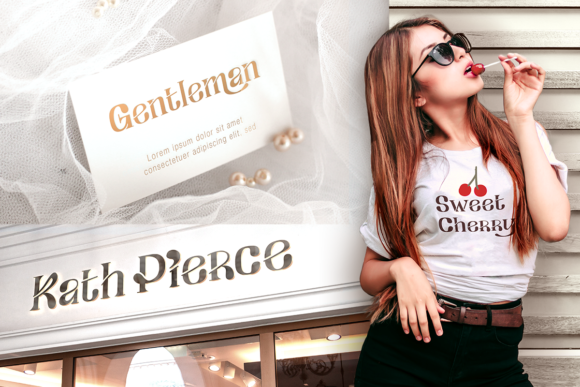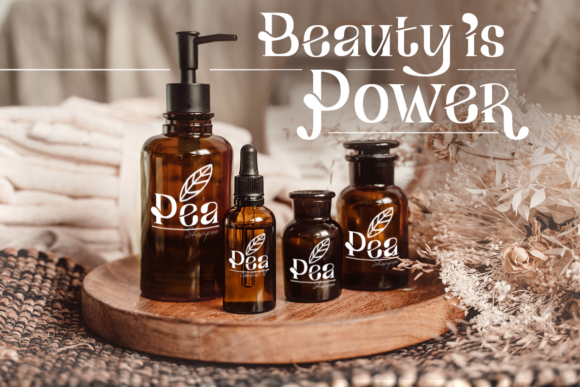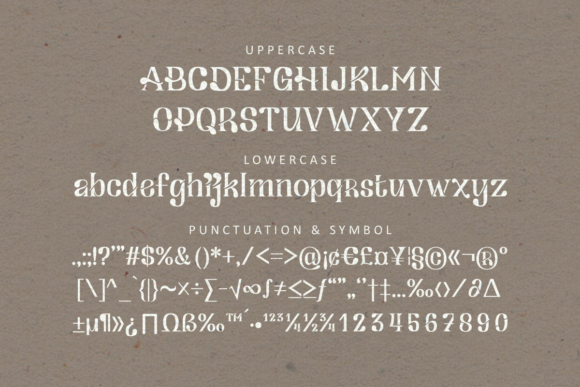
Introduction to Parisien Font
Have you ever been captivated by the charm of a city’s street signs, or the elegance of a high-end fashion magazine? For designers, those moments of creative inspiration can be a game-changer. For me, it was a stroll along the Seine in Paris that sparked the idea to dive deeper into the world of typography.
As I wandered through the city, I found myself drawn to the unique, modern aesthetic of the Parisien Font. Its sleek lines, intricate details, and versatility make it the perfect design resource for any creative project. Whether you’re working on a logo, brochure, or website, the Parisien Font is sure to elevate your design to the next level.
Key Features of Parisien Font
- High-quality, elegant design perfect for creative projects requiring a sophisticated touch.
- Designed with a high level of detail, ensuring a crisp and clear appearance at high resolutions (up to 300 DPI).
- Perfect for designers and artists working on creative projects, such as posters, invitations, and branding materials.
Honest Review: Parisien Font
I recently stumbled upon the Parisien Font while searching for a high-quality design resource for my creative project. I was immediately drawn to its elegant and sophisticated look, making it perfect for any project that requires a touch of French charm.
- ✨ Elegant and sophisticated design
- ✨ Supports both serif and sans-serif font styles
- ⚠️ Limited customization options
Overall, I’m quite impressed with the Parisien Font. It’s a great addition to any designer’s toolkit, especially for projects that require a touch of French flair. The font’s elegant design and high quality make it a great choice for any creative project. With a few minor limitations, I’d definitely recommend the Parisien Font as a go-to design resource.
The Parisien Font is a high-quality design resource ideal for creative projects. With a transparent background, it offers versatility and flexibility in various design applications.
Tips for Getting the Most Out of Parisien Font
Experiment with different font sizes and styles to create visual interest. Use the transparent background to create layered designs and add depth to your project.
The Parisien Font is suitable for various design projects, including logos, brochures, and business cards. Its high-quality design and transparent background make it an ideal choice for creative professionals and designers.
Alternatives to Parisien Font
Lato is a modern sans-serif font that is highly versatile and suitable for various design projects. It is available for free download and comes in multiple weights, making it an ideal choice for designers who need a high-quality font for their creative project.
Lato is similar to Parisien Font in its clean and elegant design, but it has a more neutral tone and a wider range of weights. It is suitable for use on a transparent background and is an excellent choice for designers who want a modern and sophisticated look for their design resource.
Open Sans is a highly legible sans-serif font that is widely used in digital design. It is available for free download and is suitable for use on a variety of devices, including desktops, laptops, and mobile devices. It is an excellent choice for designers who want a high-quality font for their creative project.
Q: Does Parisien Font have a transparent background?
No, Parisien Font is a solid font and does not have a transparent background. However, you can use it with a transparent background in design applications that support this feature, such as Adobe Photoshop or Illustrator.
Q: Can I customize Parisien Font for my creative project?
Yes, Parisien Font is a highly customizable font that can be easily edited and modified to fit your specific design needs. You can use font editing software such as FontForge or Glyphs to make changes to the font’s design and characters.